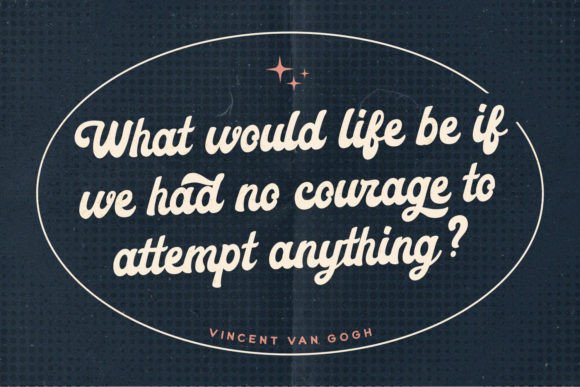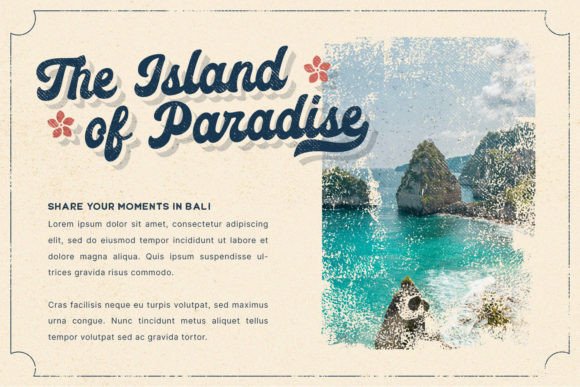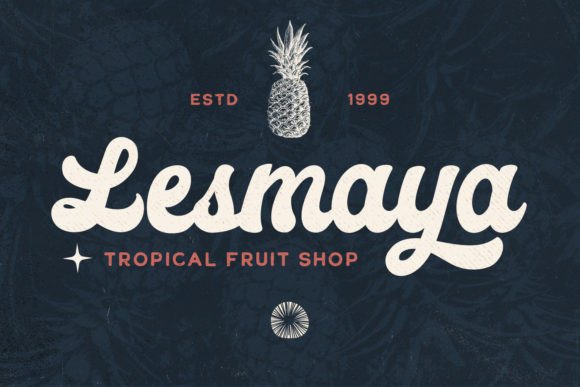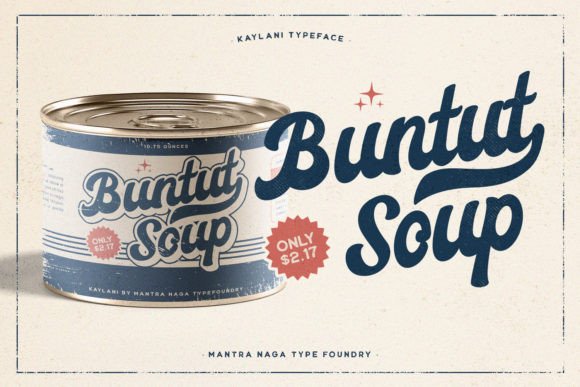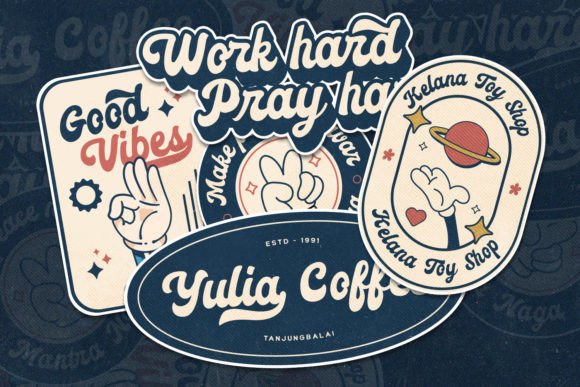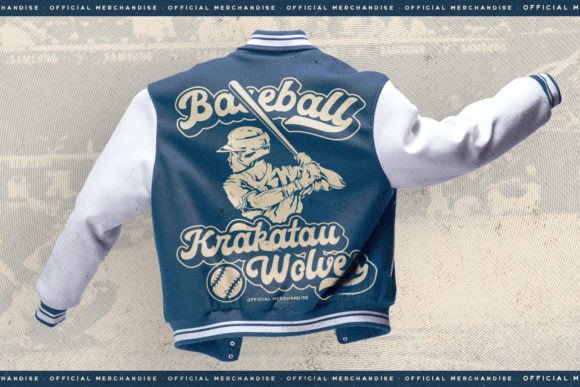
Introduction to Kaylani Font
Kaylani is an attractive display font that blends classic elegance with contemporary design.
Its sleek and stylish curves create an exquisite visual display, while its sharp lines and striking angles add a touch of sophistication This font is PUA encoded which means you can access all of the amazing glyphs and ligatures with ease.
Key Features of Kaylani Font
Why Choose Kaylani Font?
Kaylani Font offers exceptional quality and versatility, making it a valuable addition to your design toolkit. Whether you’re creating for personal projects or commercial use, Kaylani Font delivers professional results.